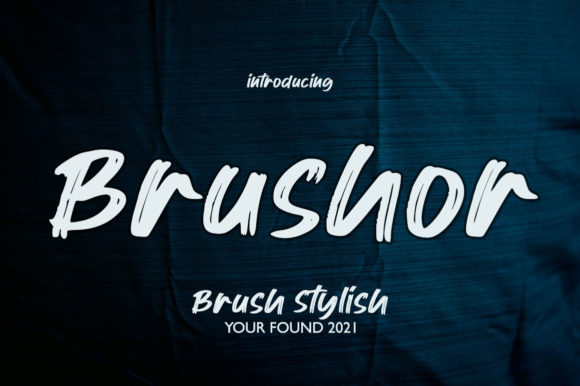
The Brushor Font: A Game-Changer for Your Design Projects
I’ll never forget the time I was working on a branding project for a trendy coffee shop. I had spent hours perfecting the logo, but something was off. The font I had chosen just wasn’t giving me the vibe I wanted. I scrolled through font after font, but nothing seemed quite right. That’s when I stumbled upon Brushor, a cool, brushed display font that instantly elevated my design. If you’re a designer, crafter, or creative hobbyist looking for a versatile font to add to your library, you’re in luck! Brushor is an incredibly valuable asset that can enhance any creation.
An Honest Review of Brushor
- ✨ Unique Brushed Effect: The textured, brush-like quality of Brushor gives it a distinctive look that’s perfect for designs that need a personal touch.
- ✅ High Versatility: Whether you’re working on a logo, a poster, or a social media graphic, Brushor adapts seamlessly to different contexts.
- 💡 OpenType Features: Brushor comes with a range of OpenType features, including stylistic alternates and glyphs, which allow for a high degree of customization.
While Brushor is an excellent font, it’s not without its quirks. For instance:
- 🤔 Legibility at Small Sizes: Like many display fonts, Brushor can become a bit tricky to read at very small sizes. It’s best used at larger sizes where its unique texture can shine.
- ⚠️ Overuse of Stylistic Alternates: With so many stylistic alternates available, it’s easy to get carried away. Use them judiciously to avoid overwhelming your design.
The Story Behind Brushor
Brushor was designed with the intention of capturing the essence of hand-brushed typography. Its creator, a typography enthusiast, aimed to craft a font that would bring a touch of warmth and personality to digital designs. Through a meticulous process of refinement, Brushor was born – a font that balances uniqueness with versatility.
| Font Name | Brushor Font |
| Author | Greentype |
| What makes Brushor unique? | Brushor’s unique feature is its brushed texture, which gives it a distinctive, hand-crafted feel. |
| Is Brushor suitable for body text? | While Brushor can be used for body text, it’s primarily designed as a display font. For longer texts, a more readable font is usually recommended. |